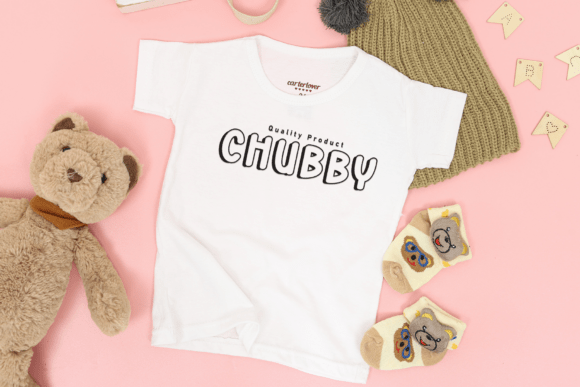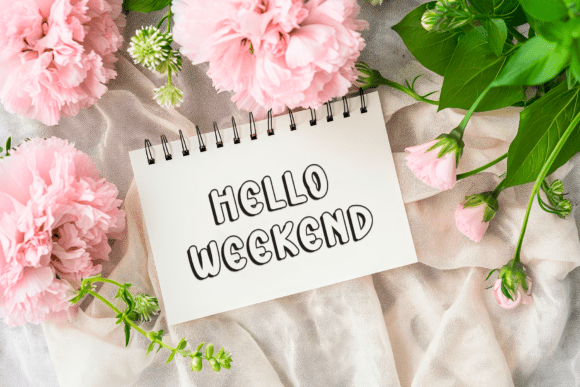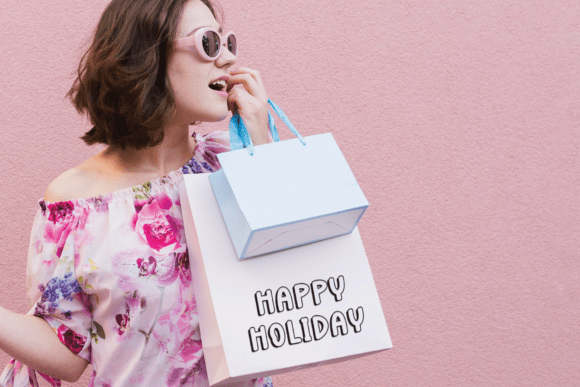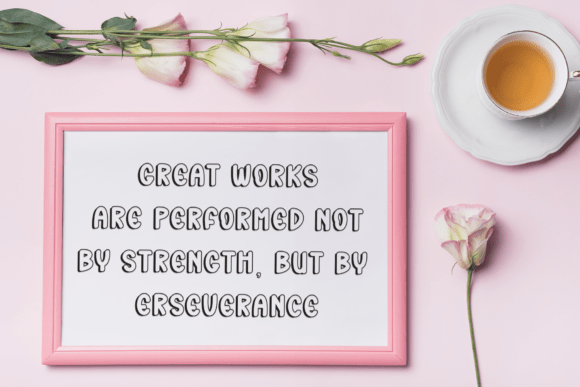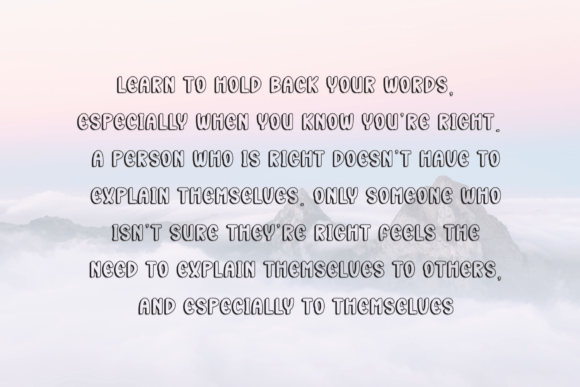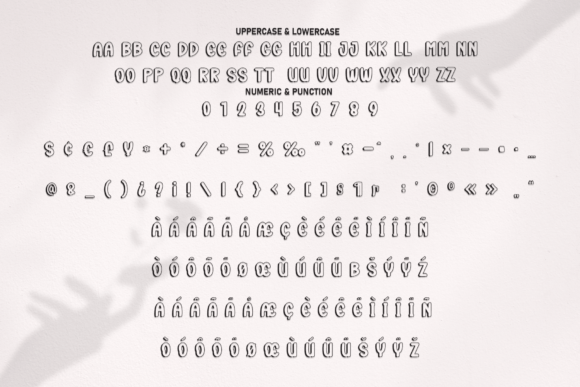
Introducing Delight Shadow Font: The Ultimate Choice for Playful and Eye-Catching Designs
Are you tired of using the same old fonts for your designs? Look no further than Delight Shadow Font, a bold and playful font that’s sure to bring energy and excitement to any project. With its built-in 3D shadow effect, this font pops off the page and demands attention. In this article, we’ll explore the features and benefits of Delight Shadow Font, and show you how to use it to take your designs to the next level.
What is Delight Shadow Font?
Delight Shadow Font is a unique and versatile font that’s perfect for a wide range of design applications. Its bold, bubbly characters and layered shadow style offer a sense of depth and fun, making it ideal for posters, banners, children’s books, and eye-catching event flyers. Whether you’re a designer, crafty DIY enthusiast, or social media influencer, Delight Shadow Font is the perfect choice for anyone looking to add a touch of personality and whimsy to their designs.
Key Features of Delight Shadow Font
- Bold and Playful Design: Delight Shadow Font features bold, playful characters that are sure to grab attention and bring energy to your designs.
- Built-in 3D Shadow Effect: The font’s built-in 3D shadow effect gives it a sense of depth and dimensionality, making it perfect for designs that need to pop.
- Versatile and Flexible: Delight Shadow Font can be used in a wide range of design applications, from posters and banners to children’s books and event flyers.
Benefits of Using Delight Shadow Font
So why choose Delight Shadow Font for your designs? Here are just a few benefits of using this amazing font:
- Adds Energy and Excitement: Delight Shadow Font is sure to bring energy and excitement to your designs, making them more engaging and attention-grabbing.
- Perfect for Kids and Adults Alike: The font’s playful design appeals to kids and adults alike, making it perfect for designs that need to appeal to a wide range of audiences.
- Great for Headlines and Centerpieces: Delight Shadow Font is perfect for use in headlines or as a standalone centerpiece when you want your message to stand out boldly.
- Helps Your Designs Stand Out: In a world where designs are constantly competing for attention, Delight Shadow Font helps your designs stand out from the crowd.
How to Use Delight Shadow Font
Using Delight Shadow Font is easy! Here are a few tips to get you started:
- Use it in Headlines: Delight Shadow Font is perfect for use in headlines, where its bold and playful design can really make an impact.
- Add it to Your Posters and Banners: The font’s built-in 3D shadow effect makes it perfect for posters and banners that need to grab attention.
- Use it in Children’s Books: Delight Shadow Font is a great choice for children’s books, where its playful design can help bring the story to life.
- Experiment with Different Colors and Effects: Don’t be afraid to experiment with different colors and effects to really make your designs pop.
In conclusion, Delight Shadow Font is a bold, playful font that’s sure to bring energy and excitement to any design. With its built-in 3D shadow effect and versatile design, it’s perfect for a wide range of applications, from posters and banners to children’s books and event flyers. Whether you’re a designer, crafty DIY enthusiast, or social media influencer, Delight Shadow Font is the perfect choice for anyone looking to add a touch of personality and whimsy to their designs.